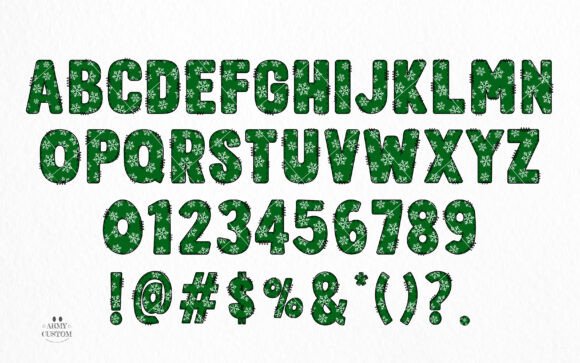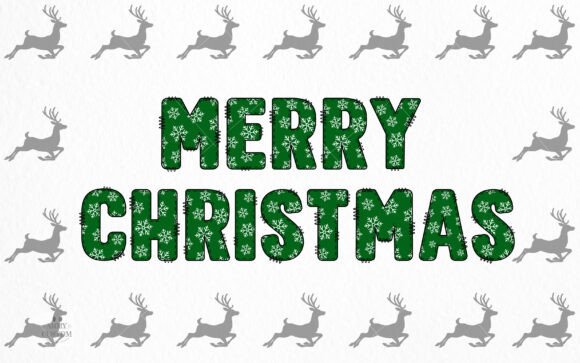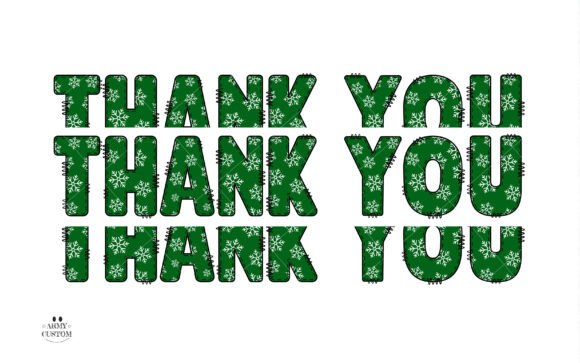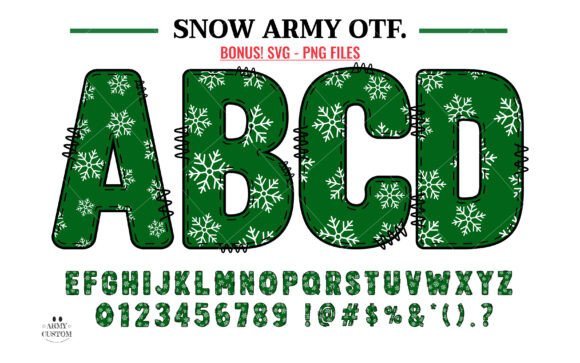
Introduction to Snow Army Font
Experience the essence of holiday nostalgia with Snow Army, a typography marvel conceived to reflect heartfelt festive emotions.
Ingeniously structured to evoke a captivating patchwork or stitched aesthetic, Snow Army brings a distinct, memorable edge to your creative expressions This font radiates a charmingly quixotic vibe that simultaneously captures past memories and future aspirations.
Key Features of Snow Army Font
Why Choose Snow Army Font?